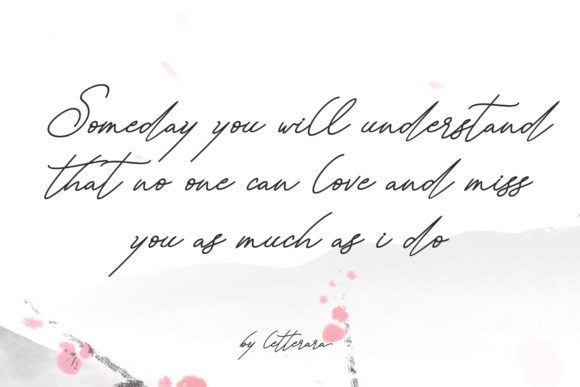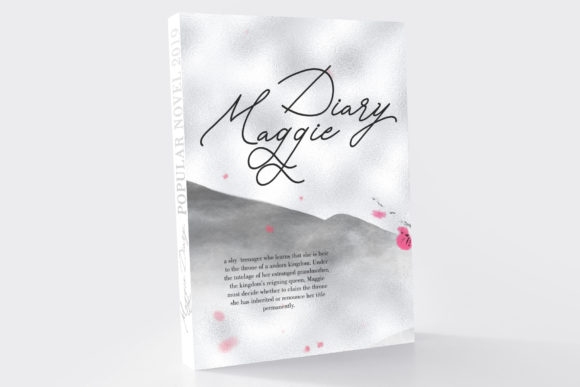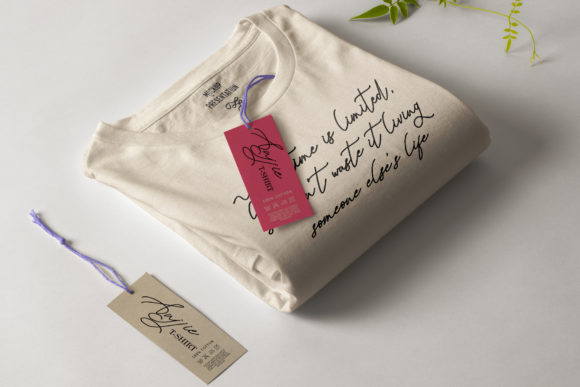
Introduction to Kanaggawa Font
Kanaggawa is a simple and elegant script font with bold swashes.
👤 Author thomasaradea
Get inspired by its unique and modern look .
Key Features of Kanaggawa Font
Why Choose Kanaggawa Font?